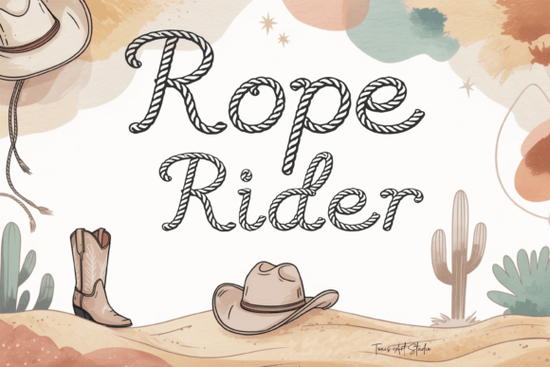
If you are looking to add authentic character to your next creative project, the Rope Rider Font offers a unique solution for anyone working with western themes. It is designed to mimic the look of twisted lasso ropes while keeping the letters clean and easy to read. Whether you are a professional graphic designer building brand assets or a hobbyist making handmade gifts, having a font that balances decoration with functionality is key. This typeface captures the rugged spirit of the Wild West without sacrificing clarity on signs or apparel.
Does this font maintain legibility in complex designs?
One of the most common concerns when selecting a display font is readability. Many stylized alphabets sacrifice letter recognition for aesthetic effect, making them unusable for anything beyond simple logos. Rope Rider avoids this pitfall through its specific stroke engineering. Each character is built to resemble real rope tension and movement, which means the curves are smooth flowing yet bold enough to stand out. The strokes are balanced specifically so that even at smaller sizes, the text remains distinguishable. This makes it an excellent choice for things like social media graphics where space is limited, or for product labels that require clear information alongside visual flair.
The handcrafted nature of the letters gives it a tactile quality that digital vector fonts often lack. You get the benefit of modern resolution without losing the charm of a rustic aesthetic. When paired with appropriate imagery, such as leather textures or wood backgrounds, the rope elements blend seamlessly. For those who enjoy mixed-media art or scrapbooking, the versatility allows the text to sit comfortably among photos and illustrations. You can download this option and explore other decorative collections, such as the Pokemon Font Decorative Fonts page, if you want to compare structural styles across different genres.
How does it perform with cutting machines and design software?
Crafters relying on electronic cutting machines like Cricut or Silhouette need fonts that are optimized for physical production. A major advantage of this typeface is that the rope strokes are cut-safe. This technical specification ensures that thin connections between letter parts do not break when you apply vinyl, heat transfer material, or when running laser cuts. Standard decorative fonts sometimes fail because the kerning or stroke weight is too delicate, leading to wasted materials and frustration. Here, the spacing and line weight are engineered to withstand the stress of cutting processes while retaining their shape.
What projects suit this western style best?
The range of applications for this typeface extends far beyond traditional cowboy hats. While the obvious uses include creating barn signs or ranch branding, the font adapts well to children’s crafts and educational materials. Imagine a classroom poster about geography or a birthday invitation with a safari or farm theme; the playful curve of the letters keeps it approachable despite the rugged look. T-shirts, hats, and apparel graphics also benefit from the high contrast provided by the design. It creates instant character for custom merchandise without needing expensive illustration services.
Logos for local businesses with a heritage vibe also gain significantly from this style. A coffee shop with a mountain lodge theme or a hardware store emphasizing craftsmanship could find their identity strengthened by this font. It conveys reliability and tradition, qualities that customers value in service-based industries. Additionally, the clean curves prevent the design from feeling too dated or old-fashioned. It bridges the gap between historical aesthetics and modern design standards, allowing for contemporary layouts that reference the past.
Finally, consider how the font interacts with other graphical elements in your composition. It pairs exceptionally well with distressed paper textures or sepia tonalities. However, mixing it with neon or futuristic color palettes creates a jarring effect that works against the intended mood. Consistency in theme helps the message land clearly with your audience. If you decide to buy this to expand your library, remember that checking licensing terms is essential for commercial resale. For the current search results and availability on the marketplace, you can find the official product by searching Rope Rider.
Pre-Sale Design Checklist
Before finalizing any project involving this font, run through this quick review to ensure quality output:
- Check Line Weight: Zoom in to 300% to verify rope strands are solid and won't snap during cutting.
- Test Readability: Convert text to white or black and place over your intended background image to check contrast.
- Verify Spacing: Tight kerning can make the "r" and "o" shapes merge visually, reducing clarity.
- Match Style: Ensure your accompanying graphics share a vintage or rustic tone for cohesion.